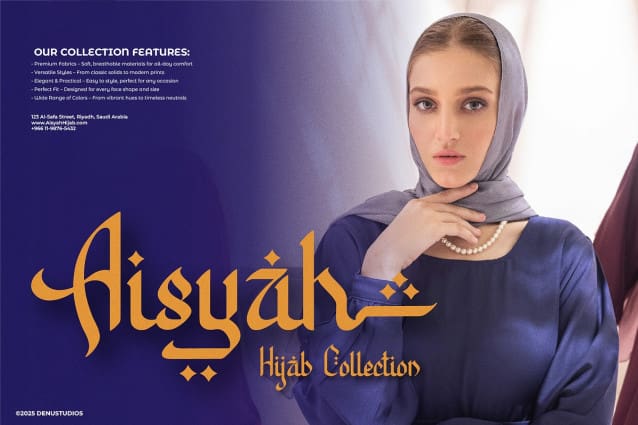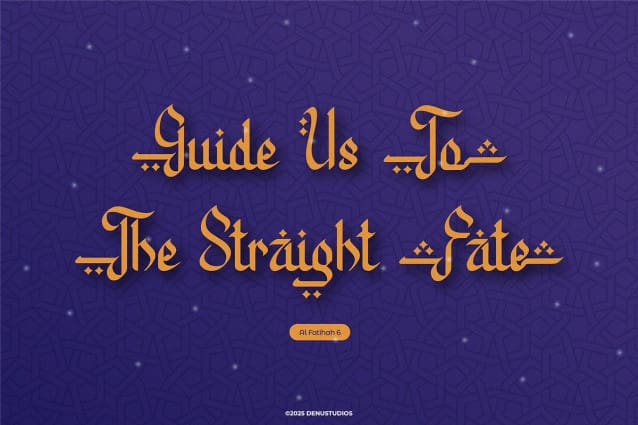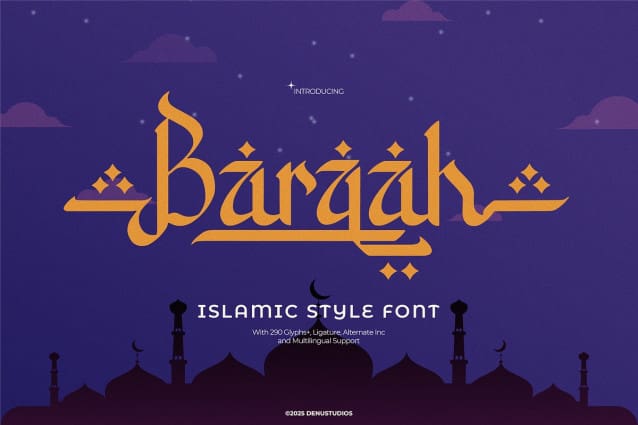
Barqah Islamic Font
Barqah Islamic Font, from Denustudios, suitable for any projects such as: logos, branding projects, homeware designs, product packaging, mugs, quotes, posters, shopping bags, t-shirts, book covers, name card, invitation cards, greeting cards, label, photography, watermark, special events, and all your other lovely projects that need a Islamic Style Font taste.